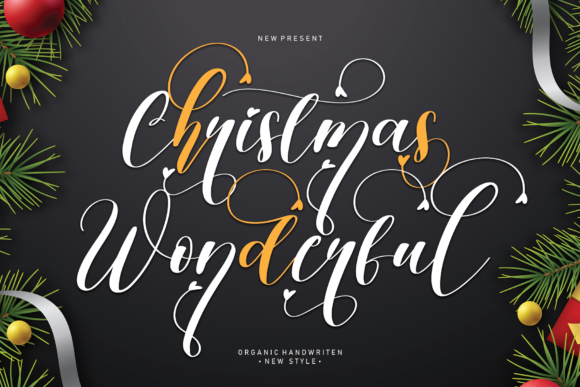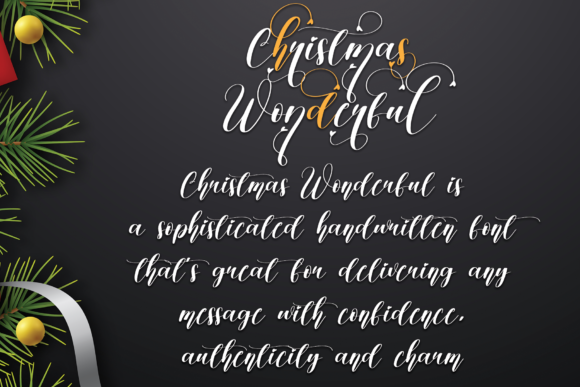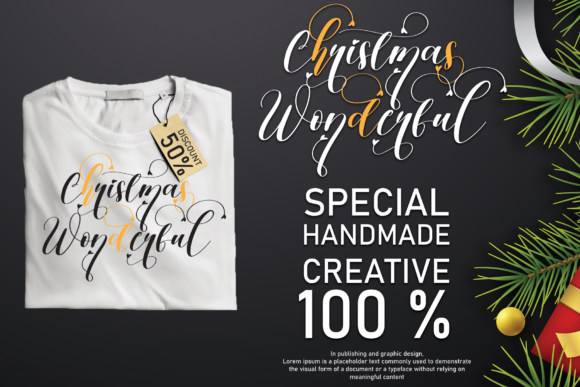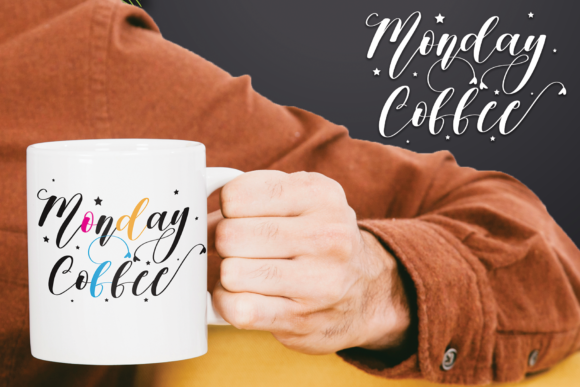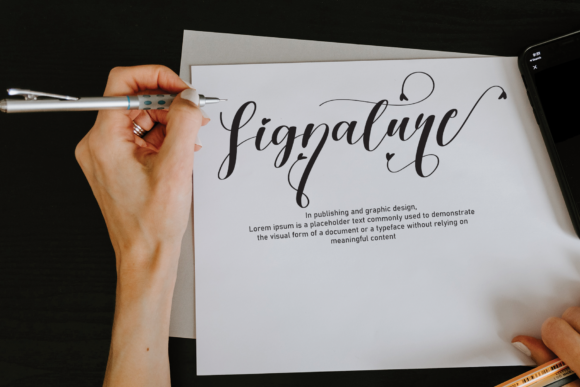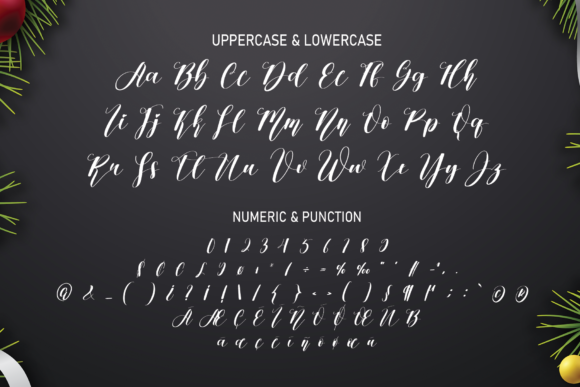
Christmas Wonderful Font
About Christmas Wonderful Font
Christmas Wonderful is a delicate and elegant handwritten font. Its distinct and well balanced letters make this font a masterpiece. Fall in love with its incredibly versatile style and use it to create spectacular designs!